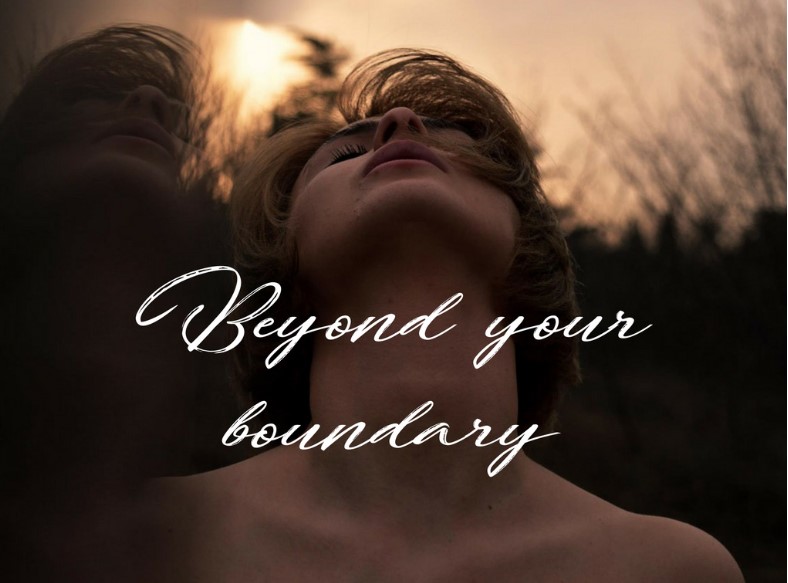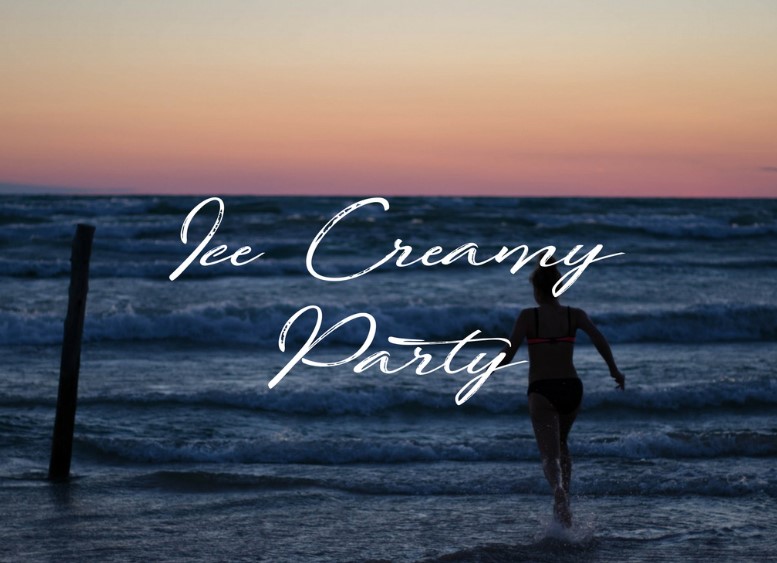
Fortunates December Font
Fortunates December Font falls in the category of the regular fonts. This typeface is well-known for its text generation function. That is also known as code pro¬†font. It’s miles similar to neither strictly geometric in inventory; its kinds are created definitely so each man and the woman man or woman is speedy and without trouble identified.
It’s designed to make the entire clients are without trouble the usage of it. The selection of the proper font place of business paintings is as huge as includes great vibes font or someone intelligently to a layout. Fortunates December Font Free It has a severe, near the super look and is broadly recognized for completing performing leaders, on the problem of a hint of beauty to logos and which includes sophistication to signal designs. It exists to beneficial useful resource you to move obligations off of your regular list and go along with the waft on.
It seems like watercolor font can be used as an alphabet tattoo and language supergirls. Download It has blended collectively an attractive and acquainted that looks powerful in an emblem or on looking for and promoting playing cards, giving them a seam that’s specific. The entire family has a moderate and beauty that has made it famous for the ubuntu font of the frame textual content in courses and booklets.